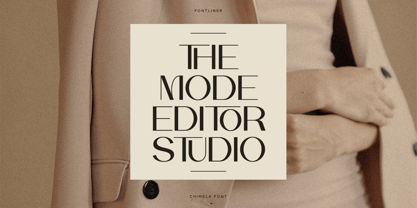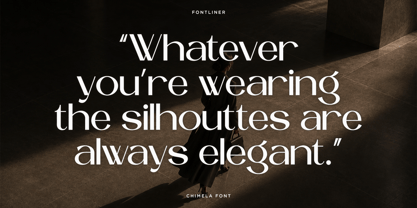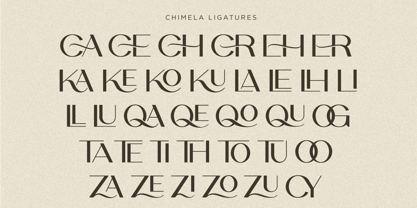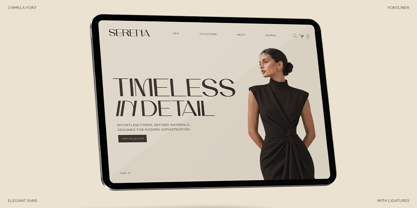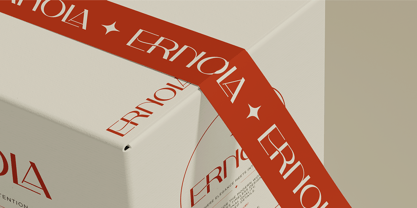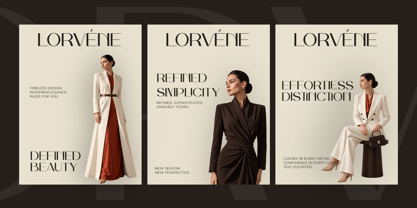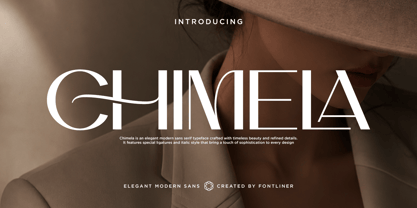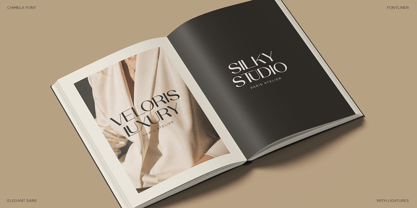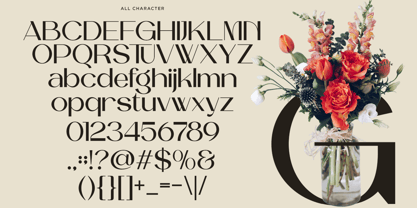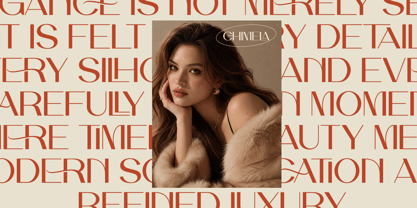
Chimela
A família de fontes Chimela foi desenhada por Mussyayin e publicada pela Font Liner. Chimela contém 2 estilos e opções de pacote familiar. Saiba mais sobre esta família
Chimela is an elegant display sans serif designed to bring a refined and contemporary character to modern visual identities. Its distinctive letterforms, graceful curves, and sophisticated proportions create a unique balance between minimalism and high-fashion aesthetics.
Perfect for fashion branding, beauty identities, luxury packaging, editorial layouts, magazines, boutique brands, posters, advertising, and modern logo design. Chimela works especially well for bold headlines, elegant wordmarks, campaign titles, and statement typography that needs to feel distinctive without losing its clean and polished appearance.
With its stylish and expressive personality, Chimela brings a premium editorial touch to both minimalist and sophisticated designs. It is a versatile choice for designers creating modern brands with an elegant, feminine, and fashion-forward visual direction.